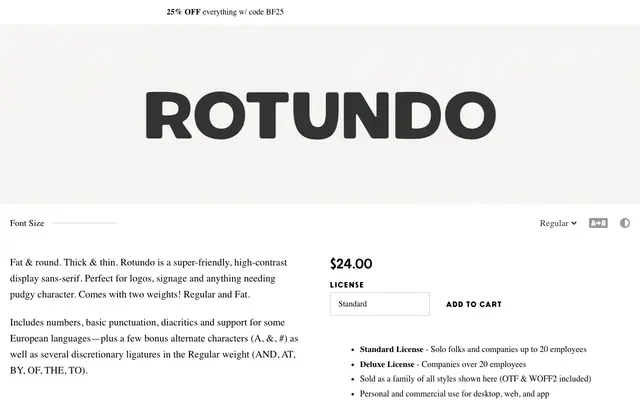
A high-contrast, rounded display sans with a deliberately pudgy character, sold in Regular, Fat and Soft styles.
Thick-thin contrast and exaggerated roundness give this display sans a playful, approachable quality suited to logos, signage and short-form headline work. The family includes three styles — Regular, Fat and Soft — alongside alternate characters for A, ampersand and hash, plus a set of discretionary ligatures in the Regular weight covering common short words. Coverage extends to Latin Extended with diacritics for several European languages.
Rotundo is explicitly described as a display sans-serif with strong thick-thin contrast and rounded forms, placing it squarely in the display category with a high-contrast sans subcategory.